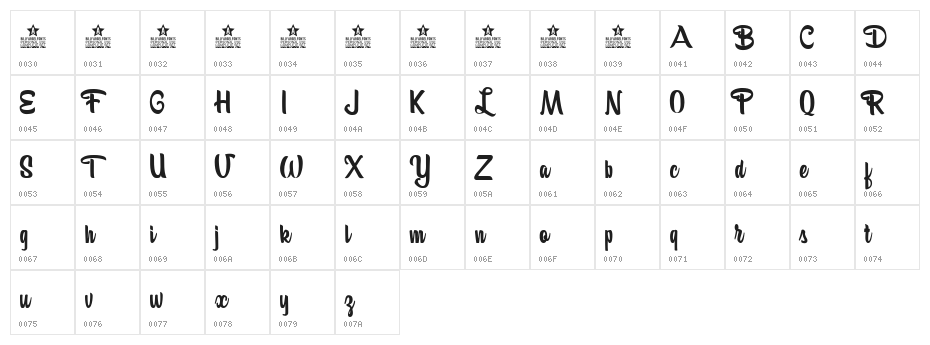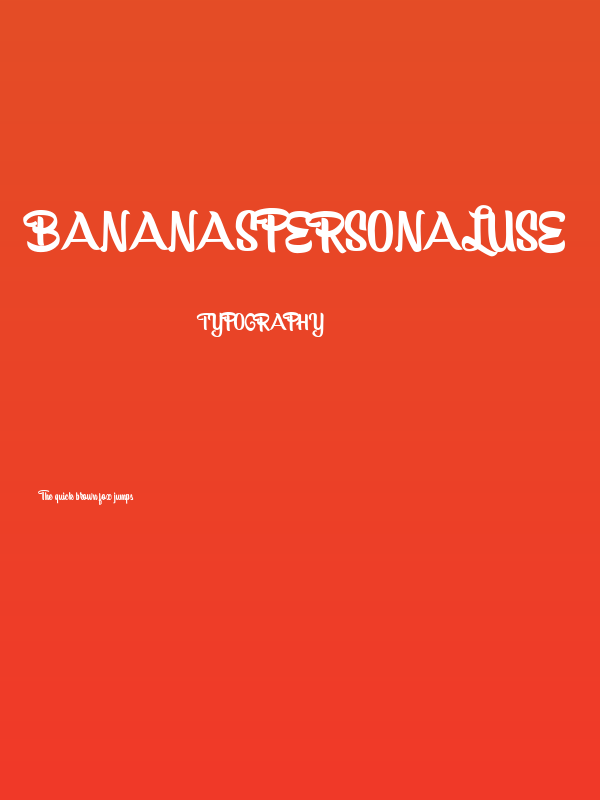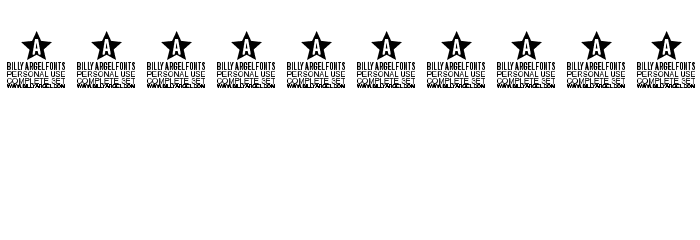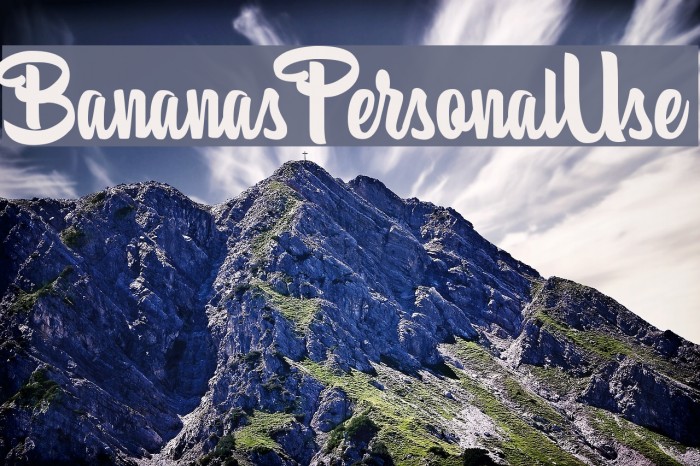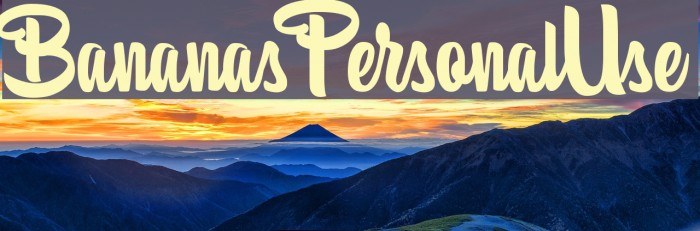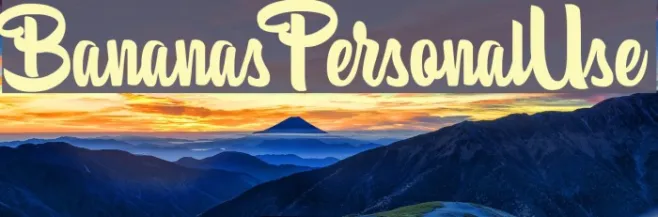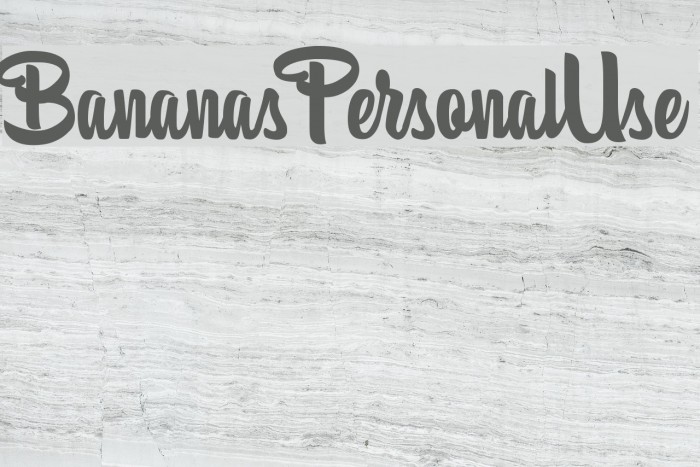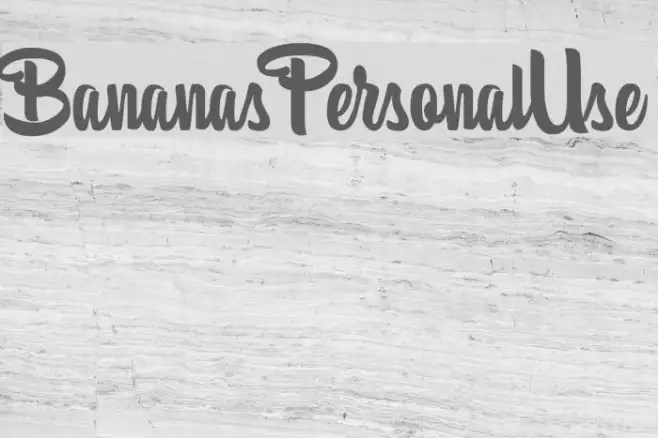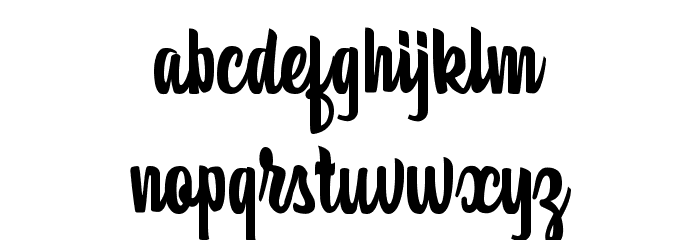
BananasPersonalUse Font
BananasPersonalUse Description
This font features a playful and energetic style with a handwritten script appearance. The letters are bold and slightly slanted, giving a sense of movement and dynamism. The uppercase characters are distinct with a whimsical flair, while the lowercase letters maintain a consistent flow. The font includes a full set of uppercase and lowercase letters, numbers, and a selection of special characters. The strokes are smooth and rounded, contributing to its friendly and approachable look.
| Proposed Projects | Ideal for greeting cards, playful branding, children's books, and creative posters. |